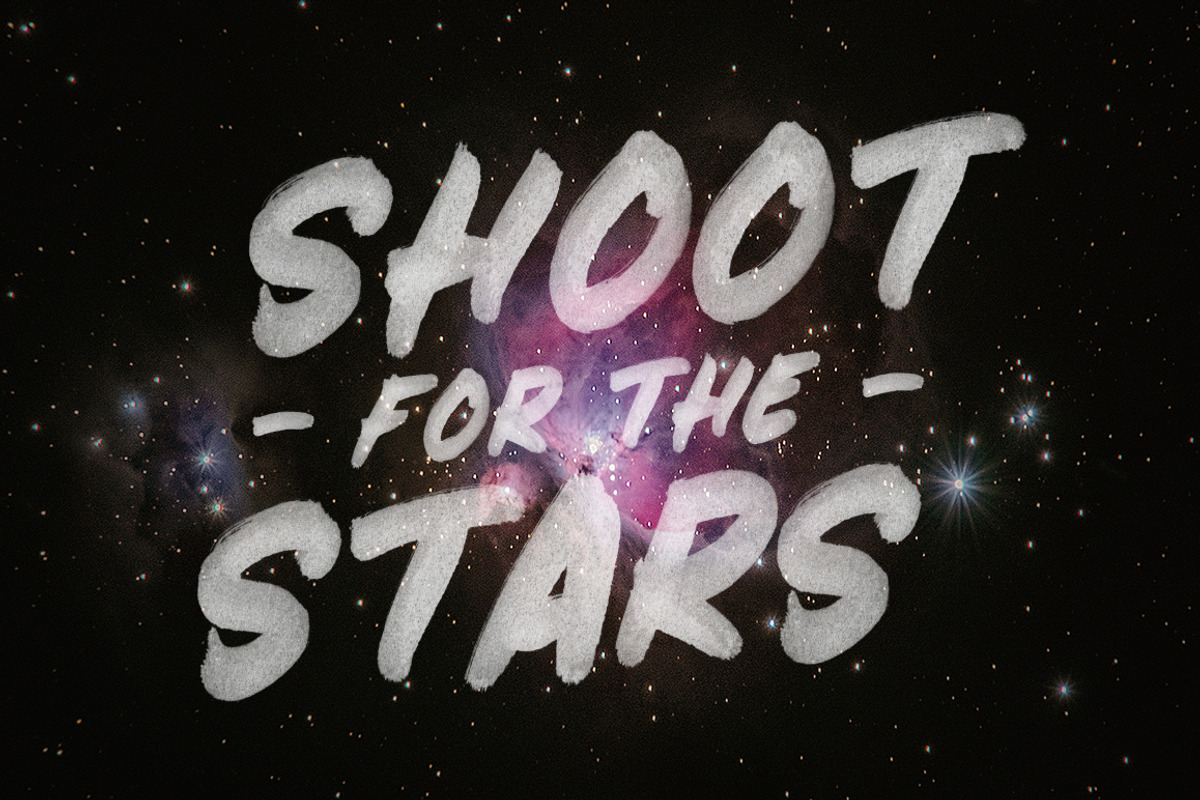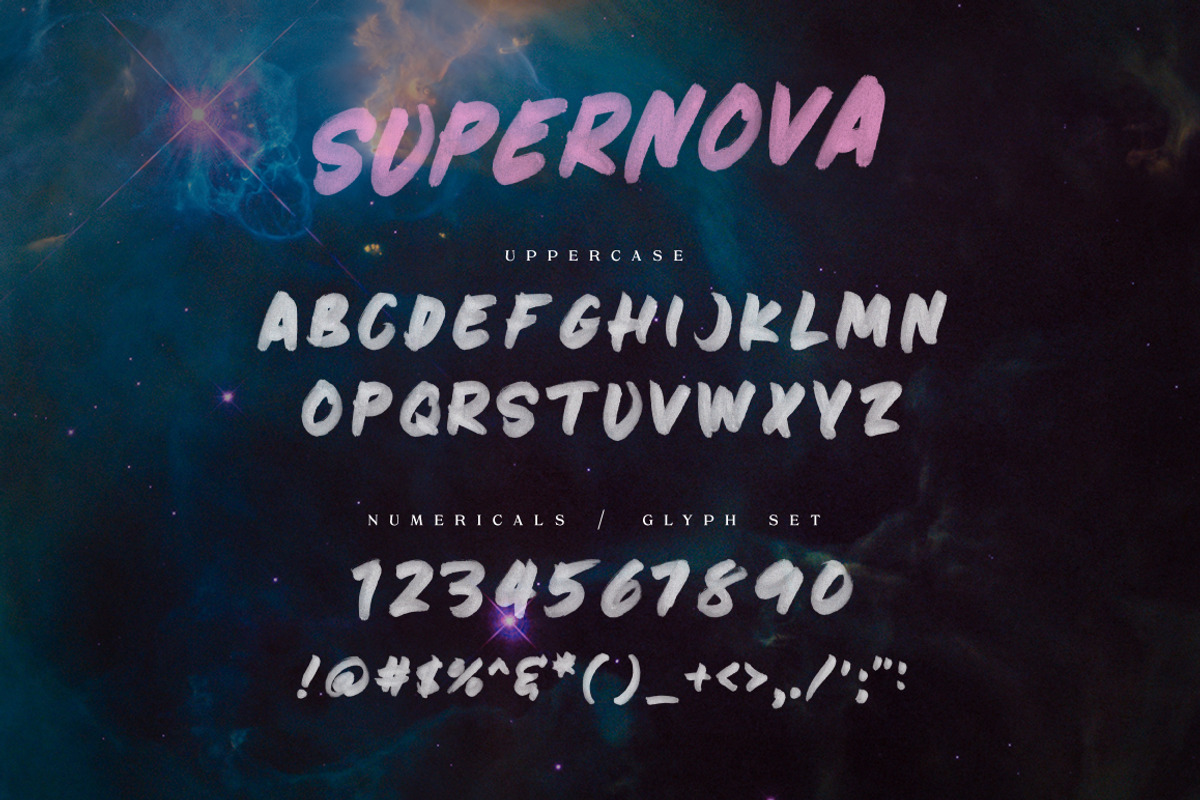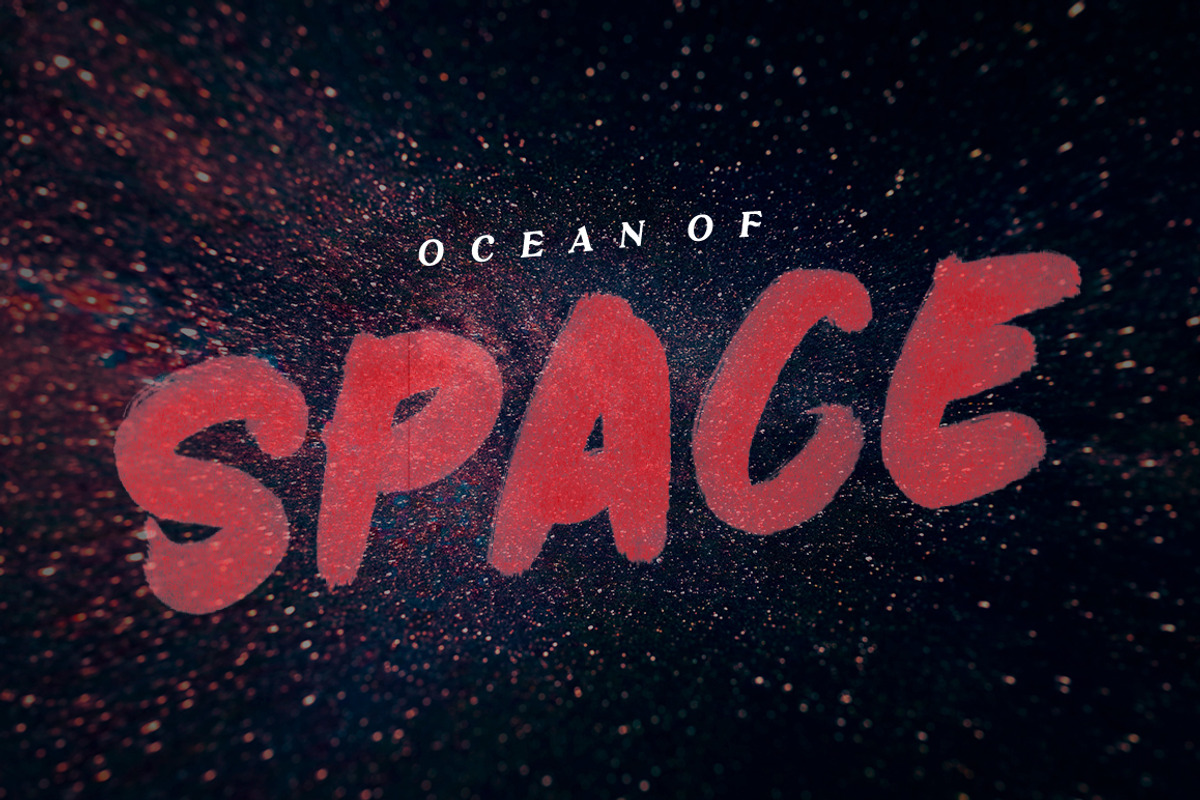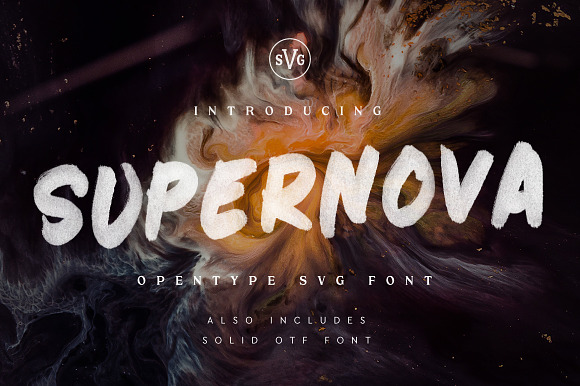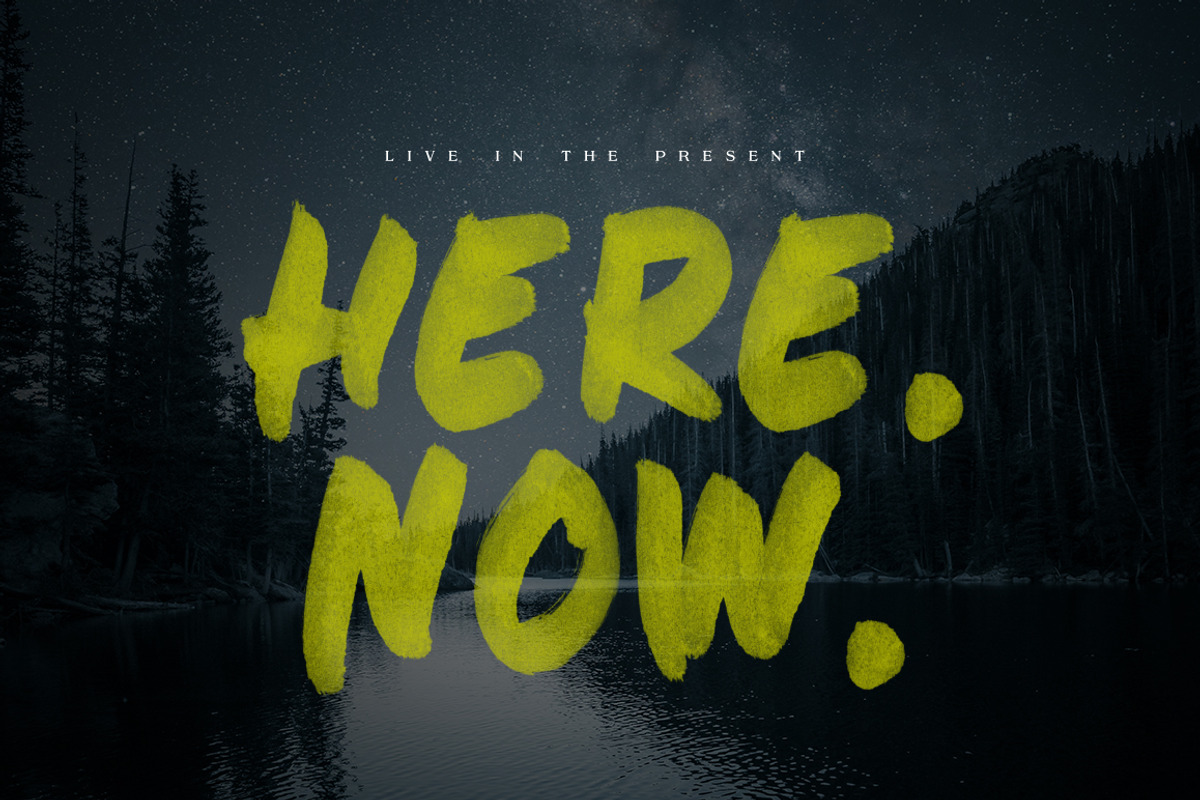
Supernova - Hand Painted Font
Supernova is a brand new bold hand painted sans serif font! It includes OTF & SVG versions, plus a PSD file with all individual characters for maximum usability.
This font is great for making big, bold statements and works great for marketing, advertising, headlines, social media posts & much more!
Supernova - Hand Painted Font by Surplus Type Co fits naturally into Branding, posters, packaging, typography.